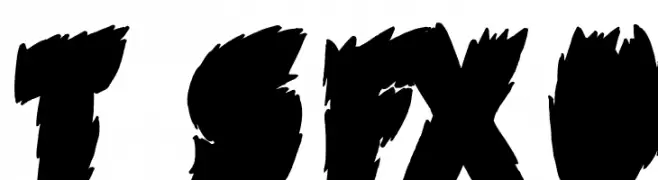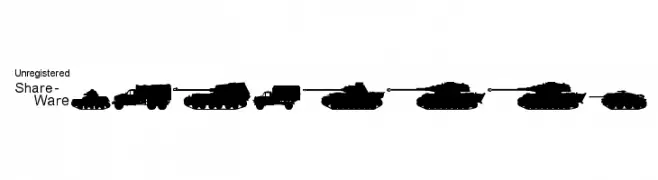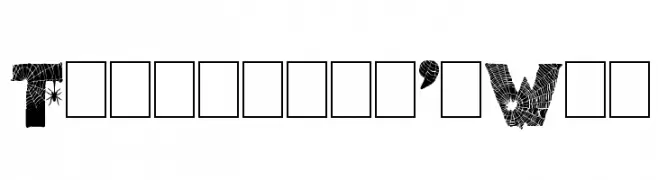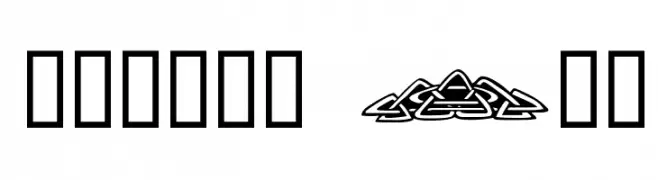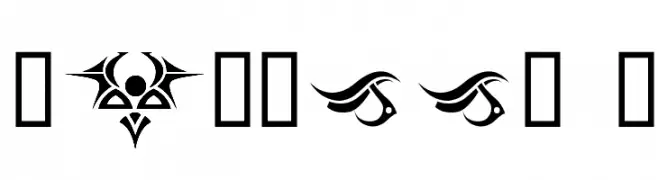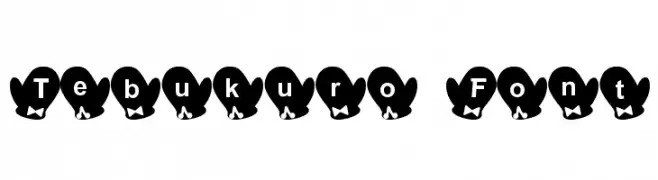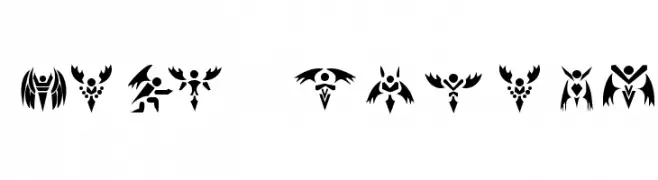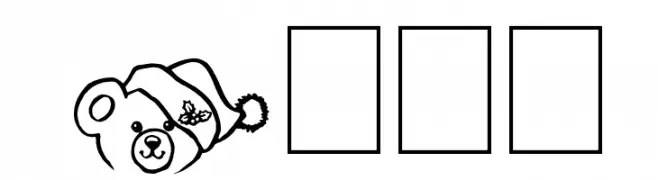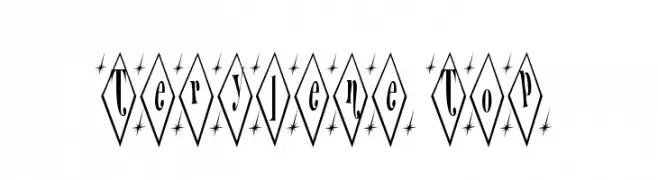
A bold, jagged font with a horror-themed, distressed aesthetic.
A vibrant, graffiti-inspired font with bold, decorative characters.
A spooky, web-patterned decorative font ideal for Halloween themes.
A bold, decorative font with a layered, three-dimensional striped design.
A decorative, cartoon bear-themed font with hand-drawn, expressive faces.
A bold, playful font with a 3D shadow effect and dotted texture.
A playful, skull-themed decorative display font with hand-drawn illustrations.
A playful, bold font with rounded edges and a whimsical style.
A playful, dot-connected font with a whimsical and friendly style.
A playful, bold font with cartoonish, exaggerated curves and a lively appearance.
A bold, playful font with a cartoonish, comic book style.
A bold, brushstroke-style font with rough, jagged edges and dynamic energy.
A whimsical and decorative font with ornate, hand-drawn letterforms.
A bold, vintage-style font with textured, diagonal stripes and geometric shapes.
A bold, 3D font with a vintage, art deco style and striped shadow effect.
Tropical and tiki-inspired decorative dingbat set.
Cartoon superhero-themed decorative font with bold, outlined characters.